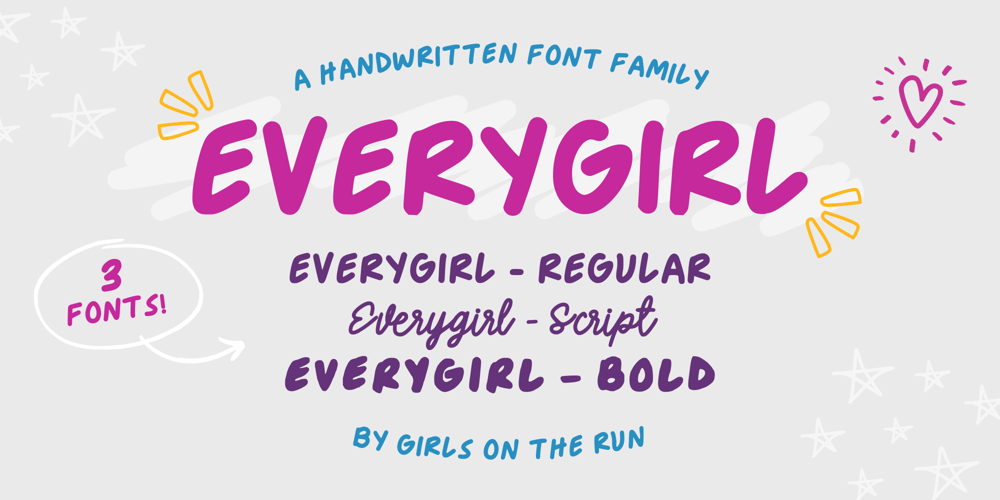
Everygirl
Everygirl font
Everygirl Font Family was designed by Molly Ricks and published by GOTR Fonts. Everygirl contains 3 styles and family package options. The Everygirl font family is a unique, handwritten typeface that blends sans-serif and script styles for a touch of effortless flair. Designed to uplift and inspire, Everygirl includes fun alternate characters like stars and hearts, supports multiple languages, and infuses every project with a joyful energy. Join us on a typographic journey that champions the power of individuality. When you choose Everygirl, you’re not just getting a beautiful font – you’re supporting the next generation of confident, trailblazing women. Download Everygirl today and let your creativity shine.